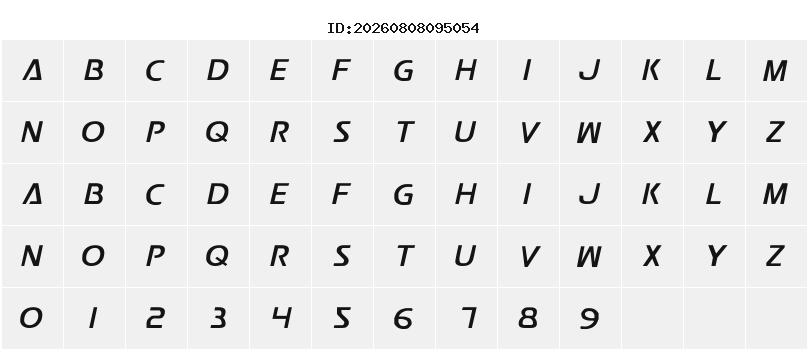
Postmaster Preview
About Postmaster.ttf
Postmaster.ttf is a modern, elegant sans-serif font designed for ultimate readability and visual harmony. Perfect for branding, headlines, web design, and print materials.